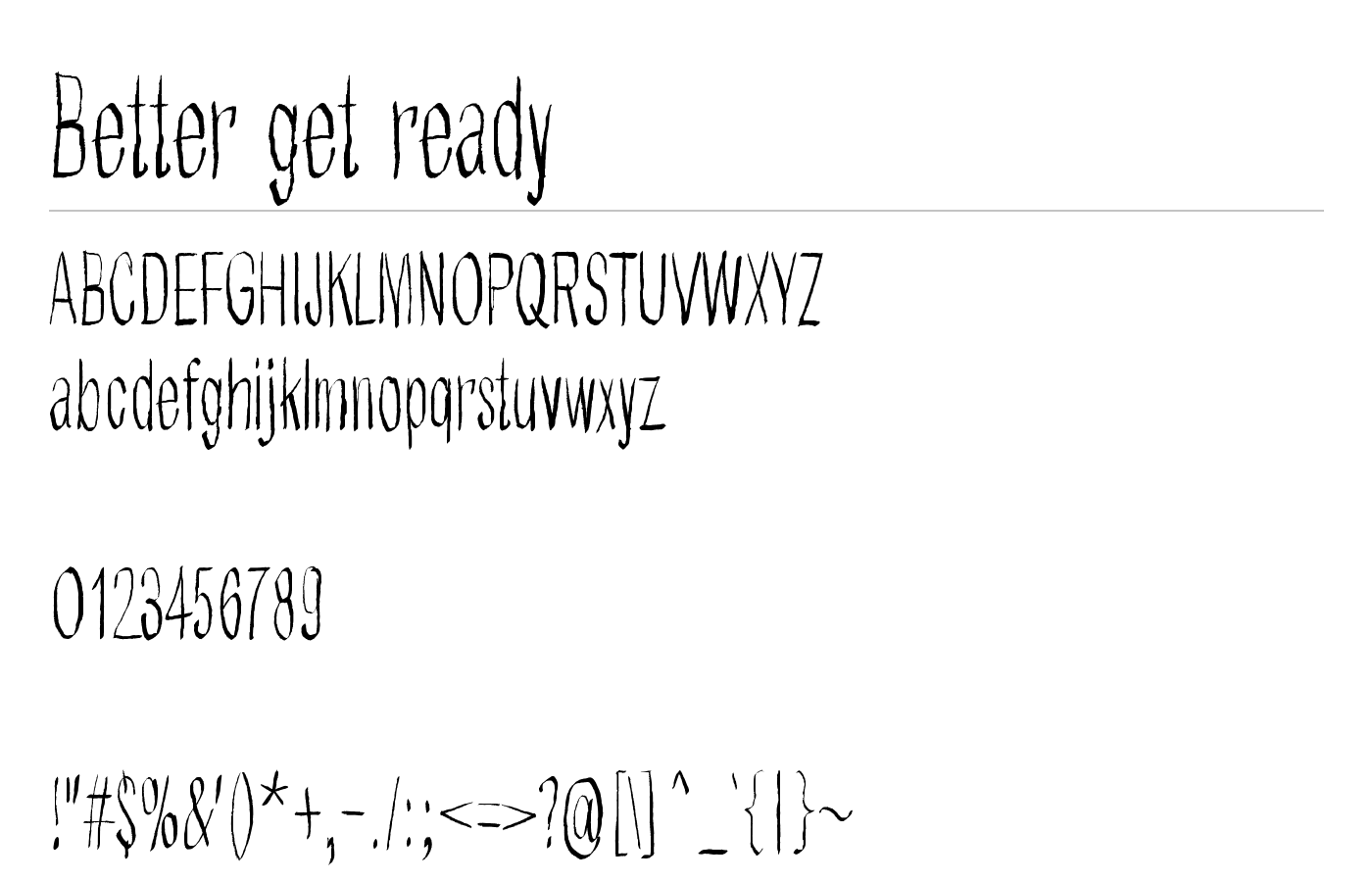
Better get ready is a narrow, hand-drawn serif font with a quirky, slightly rough texture that gives it an organic, expressive feel. Its tall, slender letterforms and uneven strokes create a playful yet edgy vibe, making it ideal for creative, casual designs needing a unique, personal touch. This font works well in headlines, posters, and branding where character and individuality are key.
Better get ready Font
About Better get ready Font
| Font family | Better get ready Font |